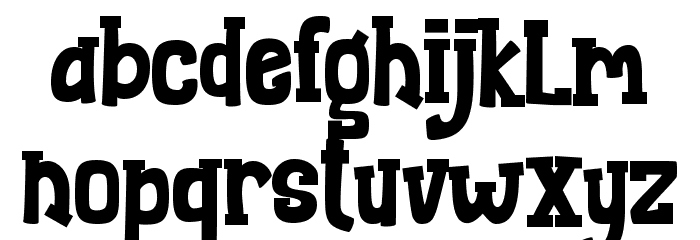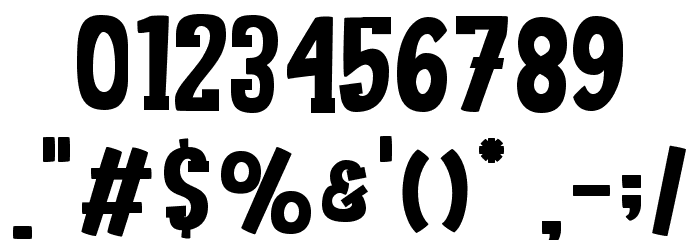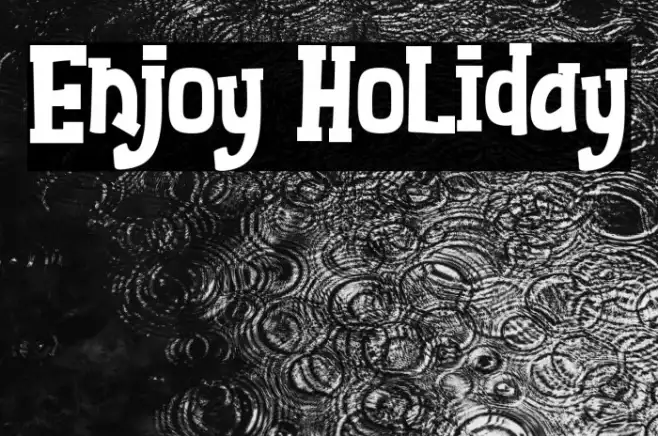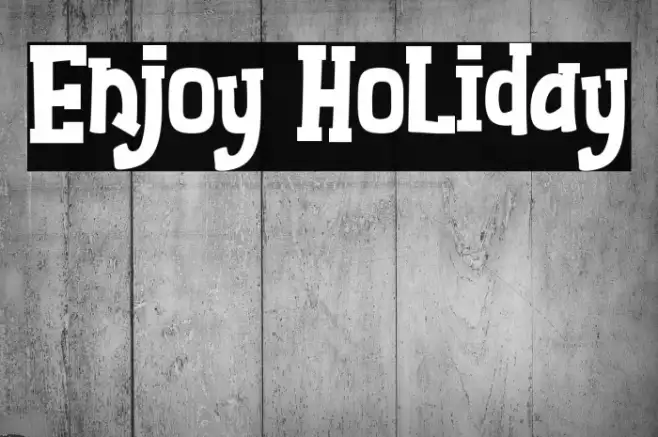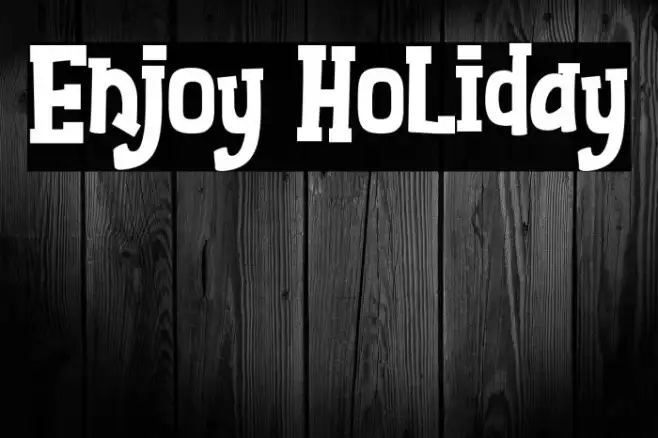
Enjoy Holiday Font
This font features a bold and playful style with a strong presence. The characters are designed with a slight slant, giving them a dynamic and energetic feel. The uppercase letters are robust and attention-grabbing, while the lowercase letters maintain a consistent and harmonious flow. The numbers are clear and legible, making them suitable for various applications. Special characters are creatively styled, adding to the font's overall charm. This font is ideal for projects that require a fun and lively touch, such as posters, invitations, or branding materials.
A bold, playful font with dynamic slanted characters and creative styling.
- Font: Enjoy Holiday
- Proposed Projects: Perfect for posters, invitations, branding, and any project needing a lively touch.
- Overall Style: Playful, Energetic